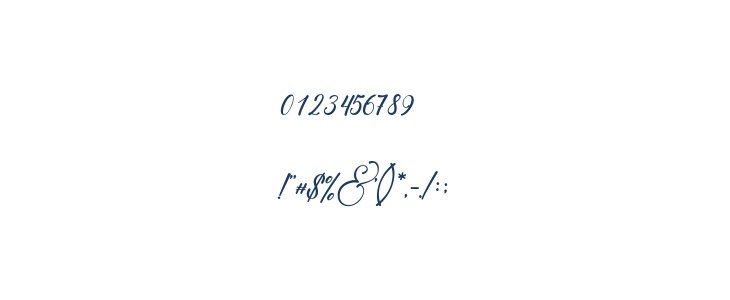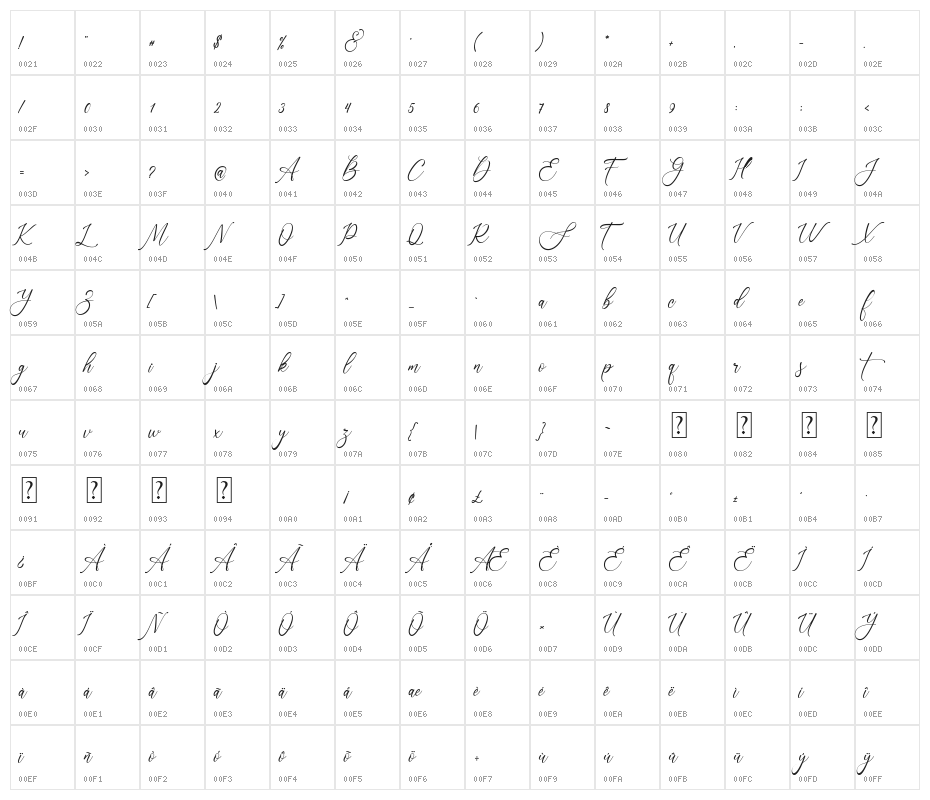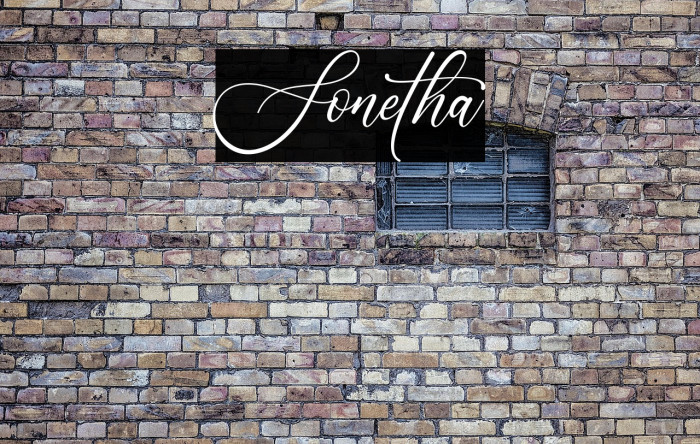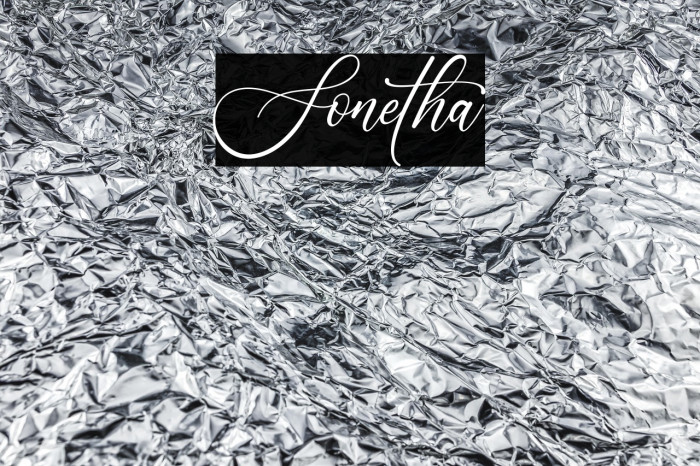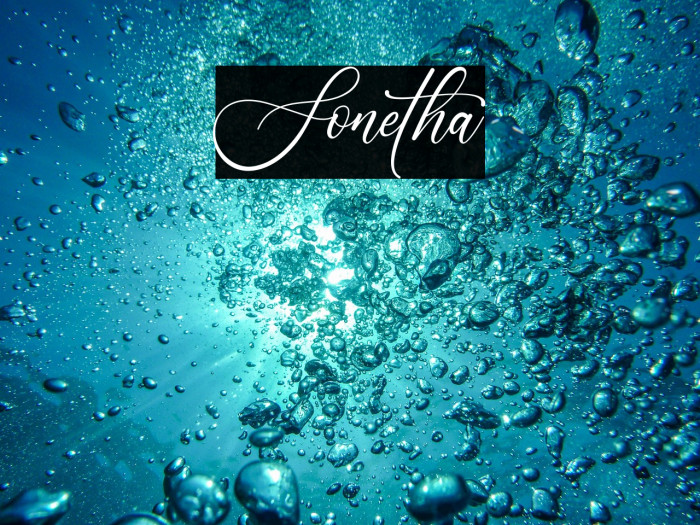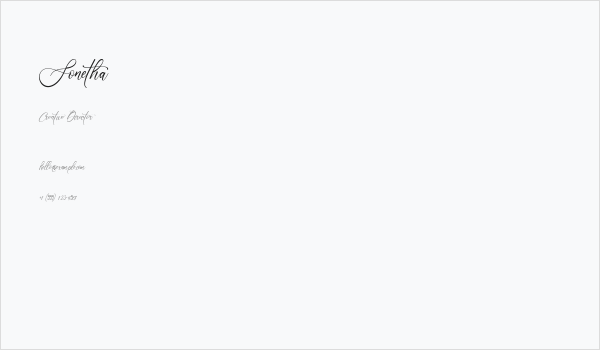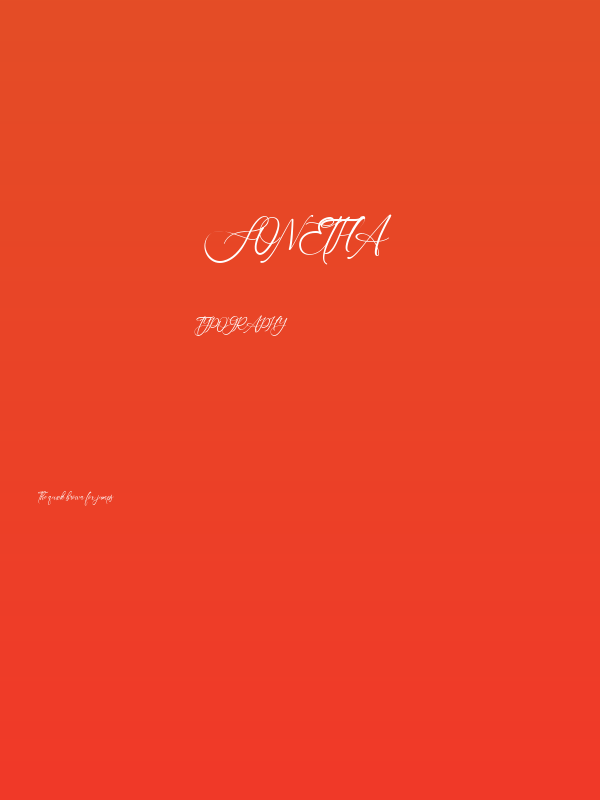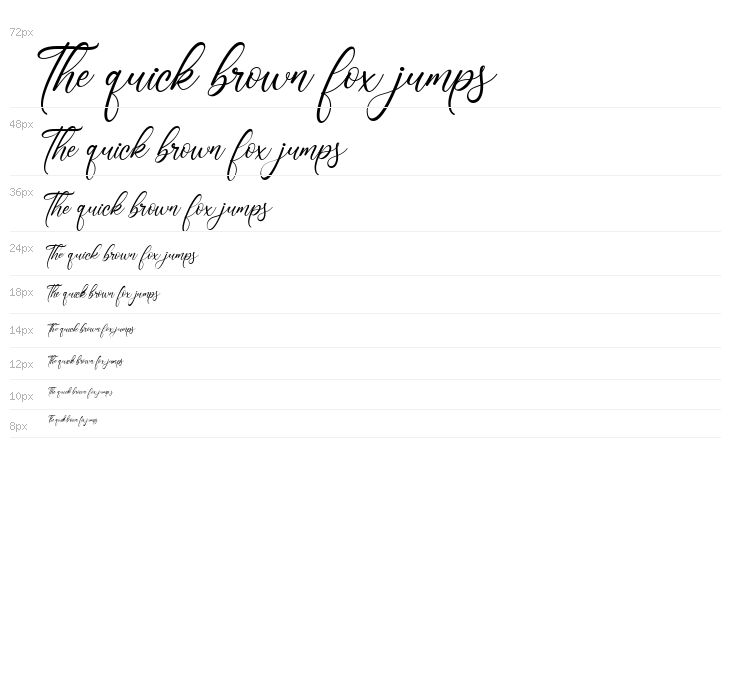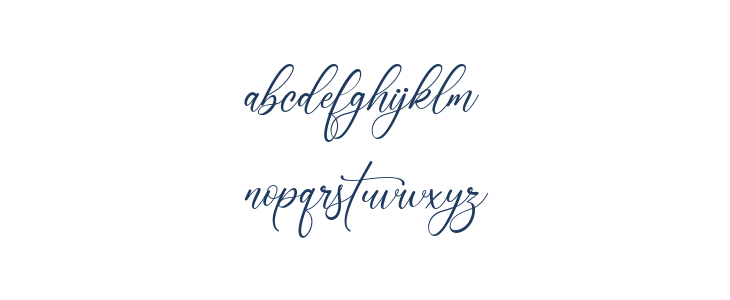
Sonetha Font
Sonetha Description
This elegant script font features flowing, interconnected letters with a sophisticated flair. The uppercase characters are adorned with intricate swashes and loops, adding a touch of luxury and refinement. The lowercase letters maintain a consistent style, with graceful curves and delicate strokes that enhance readability while preserving the font's decorative nature. The numerals are styled to match the overall aesthetic, ensuring a cohesive look across all text elements. Special characters are thoughtfully designed to complement the script's ornate appearance, making this font ideal for projects that require a touch of elegance and sophistication.
| Overall Style | Elegant, Decorative |
| Use Case | Logos, Invitations, Branding |
| Proposed Projects | Ideal for wedding invitations, luxury branding, elegant stationery, and high-end product packaging. |